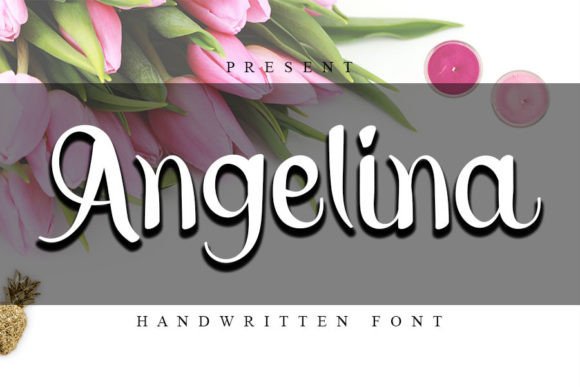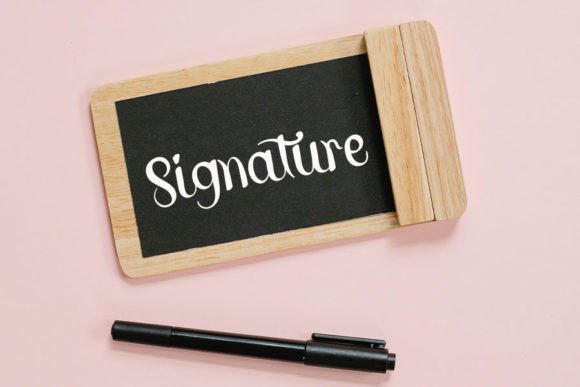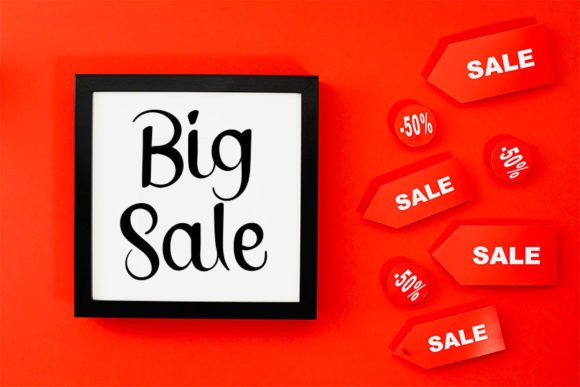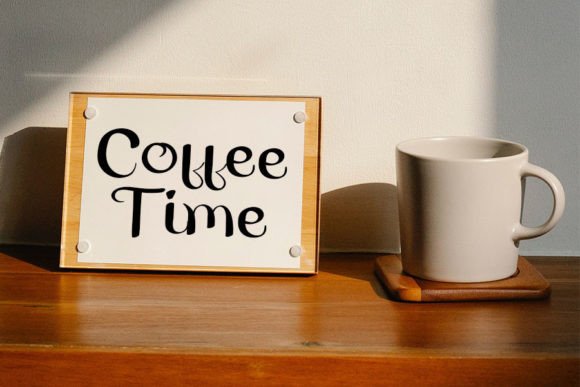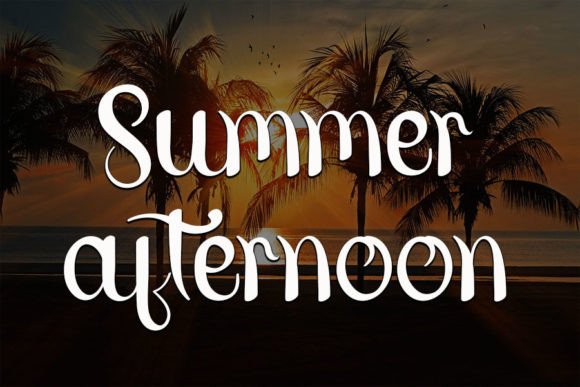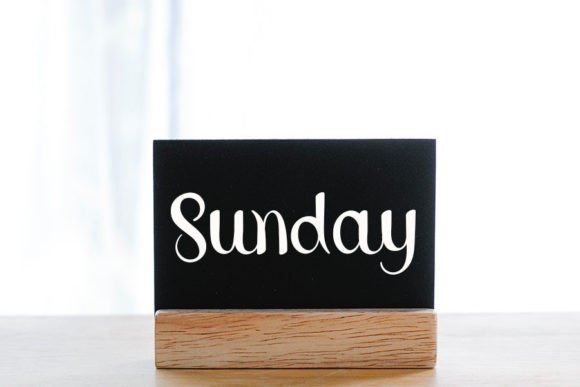
About Angelina Font
“Angelina” is a vibrant and colorful handwritten font that combines elegance with a touch of playfulness. This font has been meticulously crafted to offer a clean and slightly quirky aesthetic, making it a versatile choice for a variety of design applications, including logos, branding, social media posts, and creative DIY projects.
One of the standout features of “Angelina” is its ability to infuse your text with personality and charm. The handwritten style of the font adds a unique and authentic touch to your designs, making it ideal for projects that aim to connect with your audience on a personal and creative level.
“Angelina” is adaptable and well-suited for a wide range of design contexts. Whether you’re creating a memorable logo, establishing a cohesive brand identity, designing eye-catching social media graphics, or embarking on crafty DIY projects, this font brings a sense of creativity and individuality to your work.
Visualize using “Angelina” for your branding and how it adds a touch of playfulness and elegance to your company’s image. Imagine incorporating this font into your social media posts, making your content more engaging and relatable. When you choose “Angelina” for your crafty DIY projects, it imparts a sense of creativity and a handmade feel to your creations.
In conclusion, “Angelina” is more than just a font; it’s a versatile design tool that brings a sense of personality and creativity to your design projects. Its colorful and handwritten style makes it an excellent choice for a wide range of applications, allowing you to create designs that are both clean and charming. Let “Angelina” be your go-to font for infusing your projects with a touch of elegance and individuality, ensuring that they resonate with your audience and leave a memorable impact.